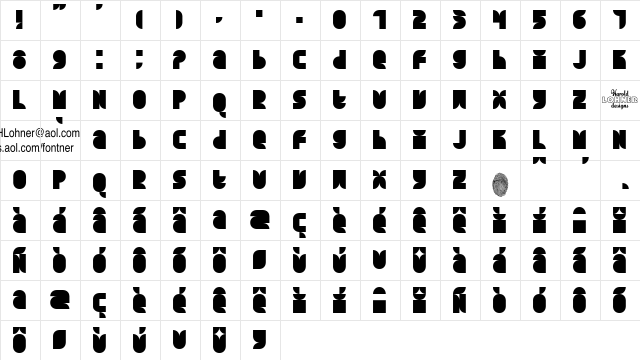
Quarterround Solid
Design Context for Quarterround Typeface
Quarterround uses gentle rounded endings to create a warm, inviting typographic personality — less corporate than geometric sans, more refined than playful display fonts.
Well-suited to UI design, mobile interfaces, and any brand that wants approachability without sacrificing clarity.
Font Pairing: Pairs well with a rounded or humanist sans for body copy, maintaining the friendly tone without relying on Quarterround to carry extended reading.
Pro Tip: Use Quarterround for UI elements, app interfaces, and anywhere a friendly, approachable tone needs to be maintained without sacrificing clarity.